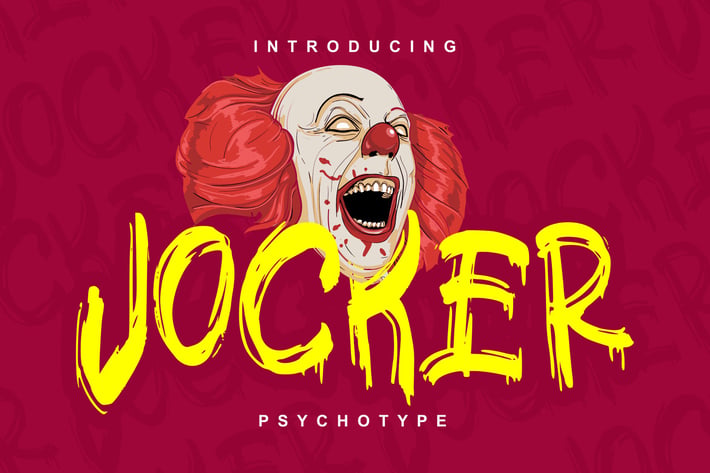
Jocker | Psychotype Font Theme
Jocker | Psychotype Font Theme with a calligraphy style, So beautiful on invitation like greeting cards, branding materials, business cards, quotes, posters, and more!